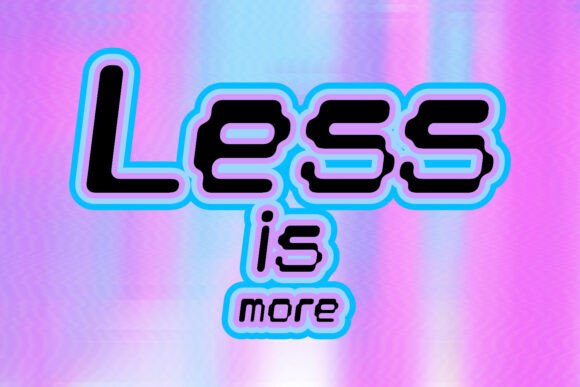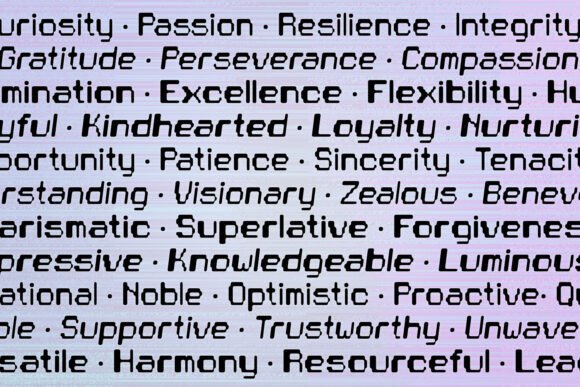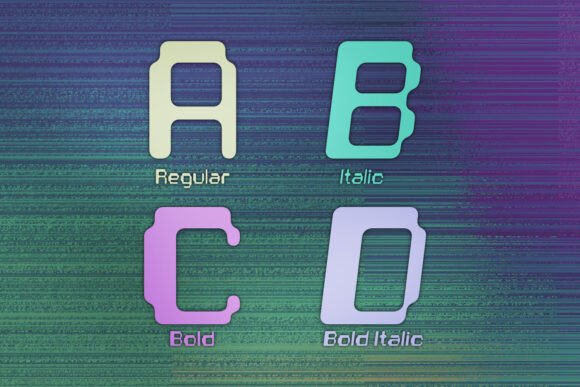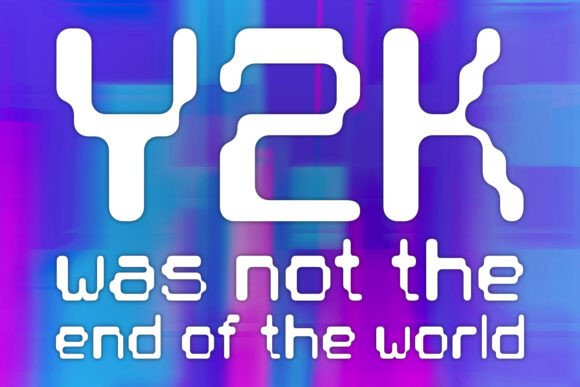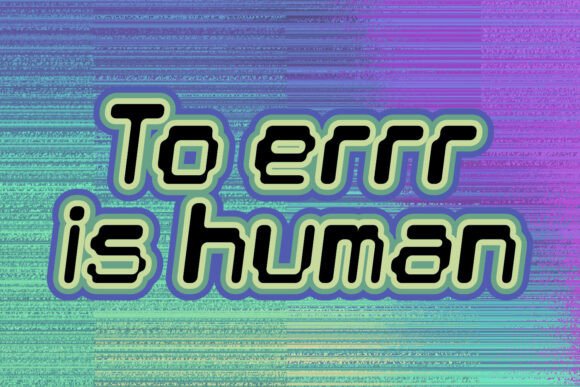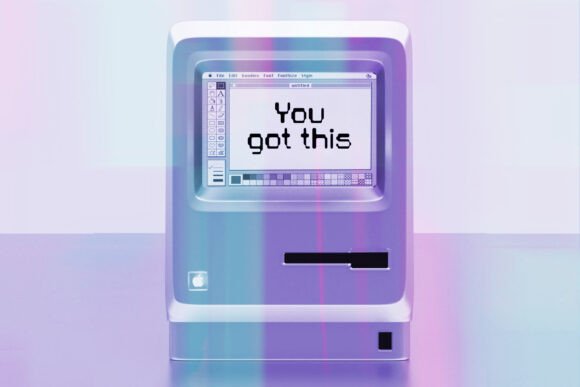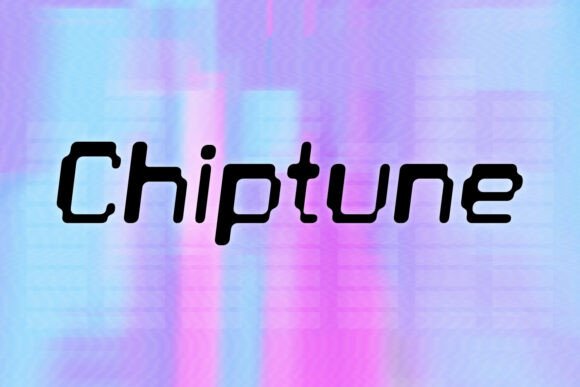
Introducing Chiptune Font: The Ultimate Retro-Futuristic Typeface
Are you tired of using the same old fonts in your designs? Do you want to add a touch of nostalgia and futurism to your work? Look no further than Chiptune Font, the asymmetric, pixel-style typeface that’s perfect for designers and crafters alike. In this article, we’ll dive into the world of Chiptune Font and explore its features, benefits, and uses.
What is Chiptune Font?
Chiptune Font is a unique and eye-catching typeface that combines the aesthetic of old-school video games with a modern twist. Its asymmetric design and pixelated style evoke the nostalgia of the Y2K era, while its bold and punchy feel makes it perfect for headlines, titles, and logos. Whether you’re designing a website, social media post, or t-shirt, Chiptune Font is sure to make your work stand out.
Key Features of Chiptune Font
- Asymmetric design: Chiptune Font’s irregular shape and pixelated style give it a distinctive and retro-futuristic feel.
- Pixel-style: The font’s pixelated design makes it perfect for designs that require a bold and crunchy look.
- Y2K nostalgia: Chiptune Font’s aesthetic is reminiscent of the early 2000s, making it perfect for designs that require a nostalgic feel.
- Versatile: Chiptune Font can be used for a wide range of designs, from logos and titles to social media posts and t-shirts.
Benefits of Using Chiptune Font
So why should you use Chiptune Font in your designs? Here are just a few benefits:
- Adds a touch of nostalgia: Chiptune Font’s retro aesthetic can evoke feelings of nostalgia in your audience, making your design more relatable and engaging.
- Stand out from the crowd: Chiptune Font’s unique design makes it perfect for designers who want to create bold and eye-catching work.
- Perfect for futuristic designs: Despite its nostalgic feel, Chiptune Font also has a futuristic aesthetic that’s perfect for designs that require a forward-thinking look.
Use Cases for Chiptune Font
So what can you use Chiptune Font for? Here are just a few ideas:
- Logos: Chiptune Font’s bold and punchy feel makes it perfect for logos that need to make a statement.
- Titles and headlines: The font’s asymmetric design and pixelated style make it perfect for titles and headlines that need to grab attention.
- Social media posts: Chiptune Font’s retro aesthetic and bold feel make it perfect for social media posts that need to stand out in a crowded feed.
- T-shirts and merchandise: The font’s bold and eye-catching design makes it perfect for t-shirts, stickers, and other merchandise.
Tips for Using Chiptune Font
Here are a few tips for getting the most out of Chiptune Font:
- Experiment with colors: Chiptune Font’s bold and pixelated design makes it perfect for experimenting with bright and bold colors.
- Play with sizes: The font’s asymmetric design and pixelated style make it perfect for using at different sizes to create visual interest.
- Combine with other fonts: Chiptune Font’s unique aesthetic makes it perfect for combining with other fonts to create a bold and eye-catching design.
Chiptune Font is a unique and eye-catching typeface that’s perfect for designers and crafters who want to add a touch of nostalgia and futurism to their work. With its asymmetric design, pixelated style, and bold feel, Chiptune Font is perfect for logos, titles, headlines, social media posts, t-shirts, and any other design that needs a punchy retro-futuristic feel. So why not give it a try and see how it can elevate your designs?